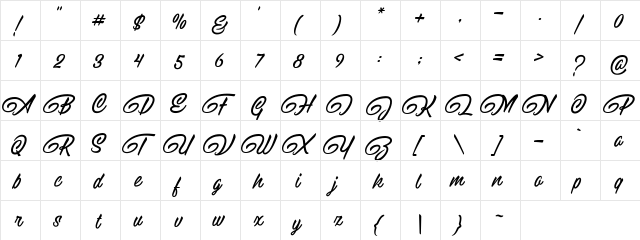
Raitons Demo Regular
Design Context for Raitons Demo Typeface
Raitons Demo is a composed and adaptable typeface that performs quietly and consistently across a wide range of design contexts.